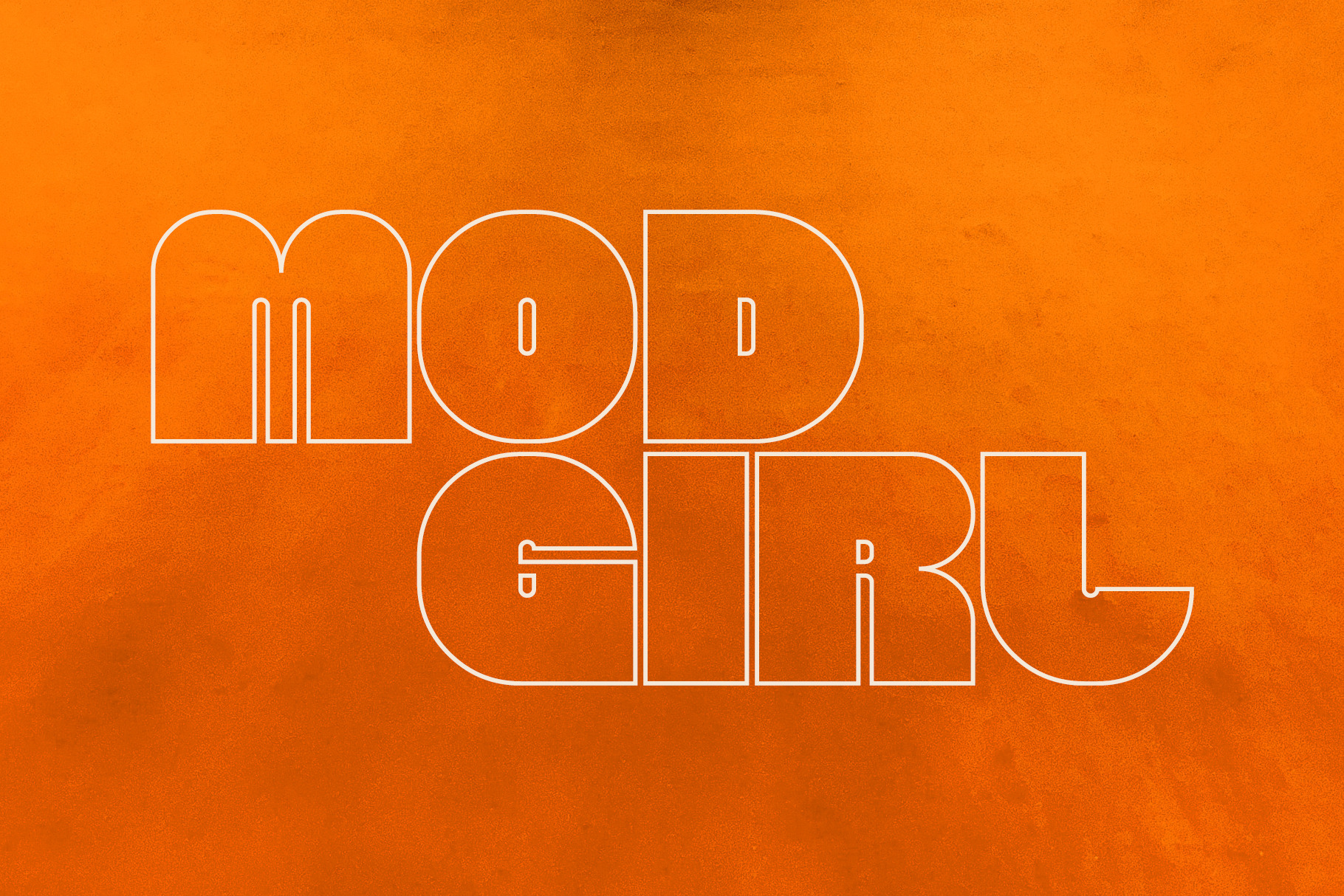
Mod Girl | Modular Display Typeface
A custom display typeface that I designed, themed around patterns reminiscent of 1960s alternative fashion, which often combined bold-colored geometry with sophistication.
The typeface contains 69 glyphs, including:
- Capital letters
- Symbols (for punctuation, basic formulas, etc.)